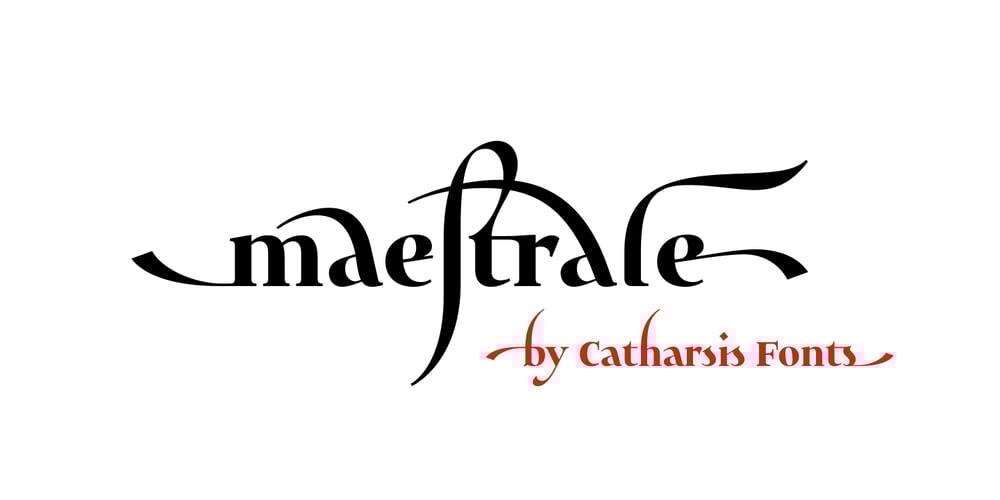
Maestrale
Maestrale font
Maestrale Font Family was designed by Christian Thalmann and published by Catharsis Fonts. Maestrale contains 5 styles and family package options. Maestrale is a paradigm-breaking new take on calligraphy, built around a compact, serif-style core and outrageously long, flamboyant extenders. At large sizes, its confident, charismatic lettershapes are ideally suited for branding and decorative uses, whereas longer texts at smaller sizes naturally weave themselves into a flowing texture. The font comprises 1299 glyphs, including many stylistic alternates, ligatures, small capitals, and initial, terminal, and linking forms, and offers extensive OpenType programming to support them. The calligraphic form of Maestrale is complemented by a matching text font (Maestrale Text) with short extenders, available in three cuts (a serif-style Roman, an upright Cursive, and a tilted Italic). Maestrale is all about the lowercase; its capitals are deliberately understated so as not to steal the limelight. In fact, the font works very well when set exclusively in lowercase. Maestrale�s small capitals are fitted into the core space of the lowercase, allowing them to be freely interspersed with lowercase characters. Alternately, an OpenType feature is available to replace a and e in small-caps text with their lowercase equivalents for a fresh unicase look. Since alternates and ligatures play such an important role, Maestrale offers three different modes of use. The most straightforward approach is simply to start typing using Maestrale Pro � the extensive OpenType programming will ensure that collisions between extenders are avoided and attractive ligatures are substituted for common glyph combinations. A more interactive approach is provided by the font Maestrale Manual, which allows the user to manually select alternate forms and ligatures even in typographically unsavvy applications, such as PowerPoint (as long as standard ligatures are supported). Stylistic alternates are simply represented as ligatures of their base forms with one or more instances of the rarely-used by easily-accessed characters “~” (ASCII tilde) and “`” (spacing grave accent); linking forms are built with �_� (underscore), multi-character ligatures with “|” (pipe), and initial and terminal forms with the �less than� and �greater than� characters. For instance, the Maestrale wordmark in the posters above was simply typeset with the string (`ma`est|r_a“`l“`e)| in Maestrale Manual (The parentheses represent �less than� and �greater than� characters here.) Feel free to type this string into the test line below and see what happens! Make sure Standard Ligatures are enabled. An instruction sheet listing all alternate forms and their accessibility is available from the Gallery tab on this page. The third mode of usage is aimed at professional designers, who make use of sophisticated software with extensive OpenType support. These power users are advised to use the font Maestrale Pro again, where all glyphs are accessible as stylistic alternates. Maestrale Text is a less extravagant but more versatile variation on the design of Maestrale, replacing Maestrale�s swashes with efficiently compact extenders. It is intended to serve as a perfectly matching text companion to Maestrale calligraphy, but constitutes a full-fledged typeface in its own right. It is equally at home at display sizes as it is in pull quotes, titles, and high-impact blocks of text. Maestrale Text comes in three complementary faces: A serif-style Roman, an upright Cursive, and a tilted Italic. Maestrale is the Italian word for �masterful�. It is also the traditional Italian name for the northwesterly mediterranean wind, better known by its French name, Mistral. Acknowledgements: I am grateful to the helpful souls on the Typophile forums for extensive feedback and encouragement on Maestrale, and to the TypeDrawers forum for feedback on Maestrale Text. This font is dedicated to Simone.